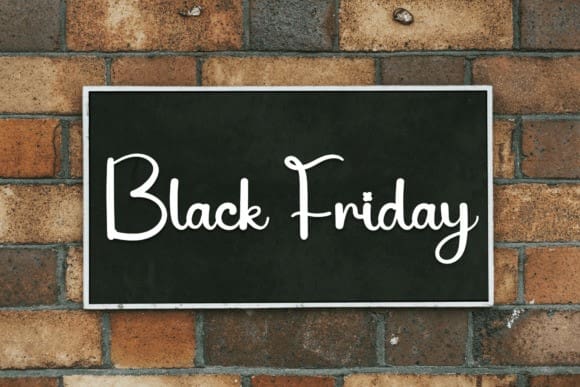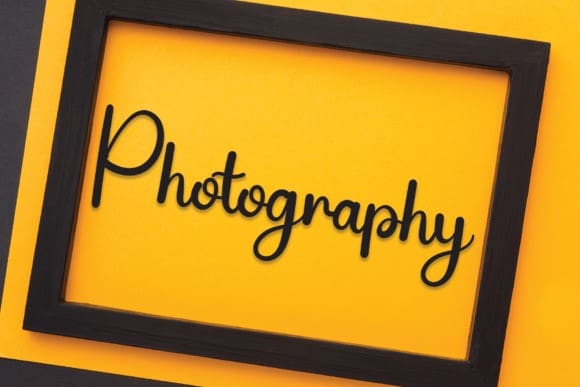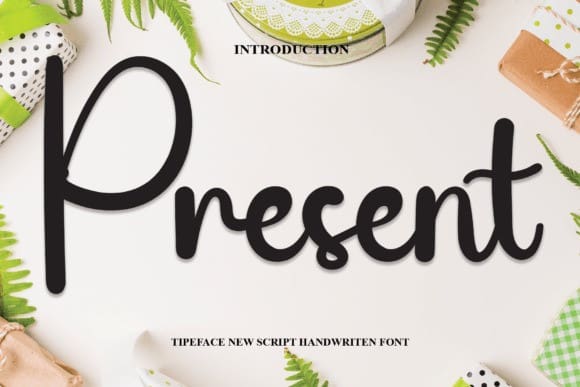
Present Script Font
Present Script Font, is a sweet and smooth handwritten font. Cute and playful, this font is ideal for writing wedding invitations, cards, or any other design that might need a romantic and personal touch!